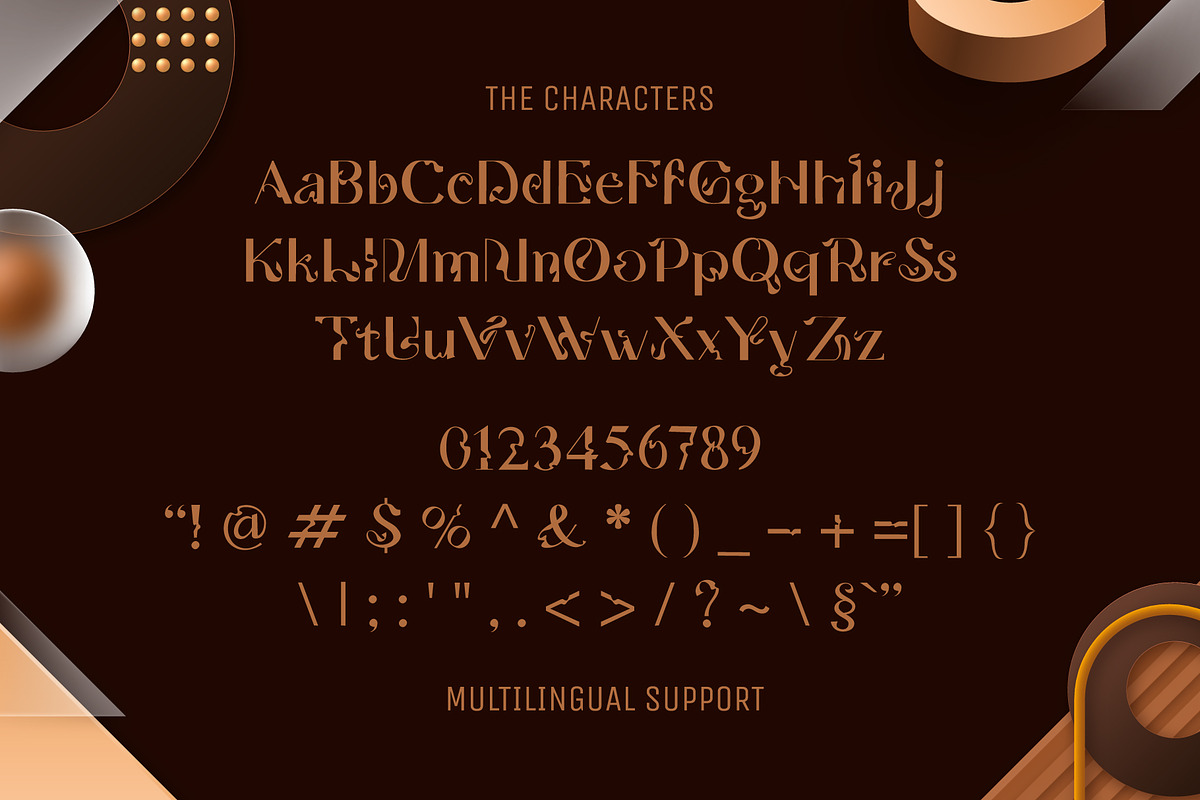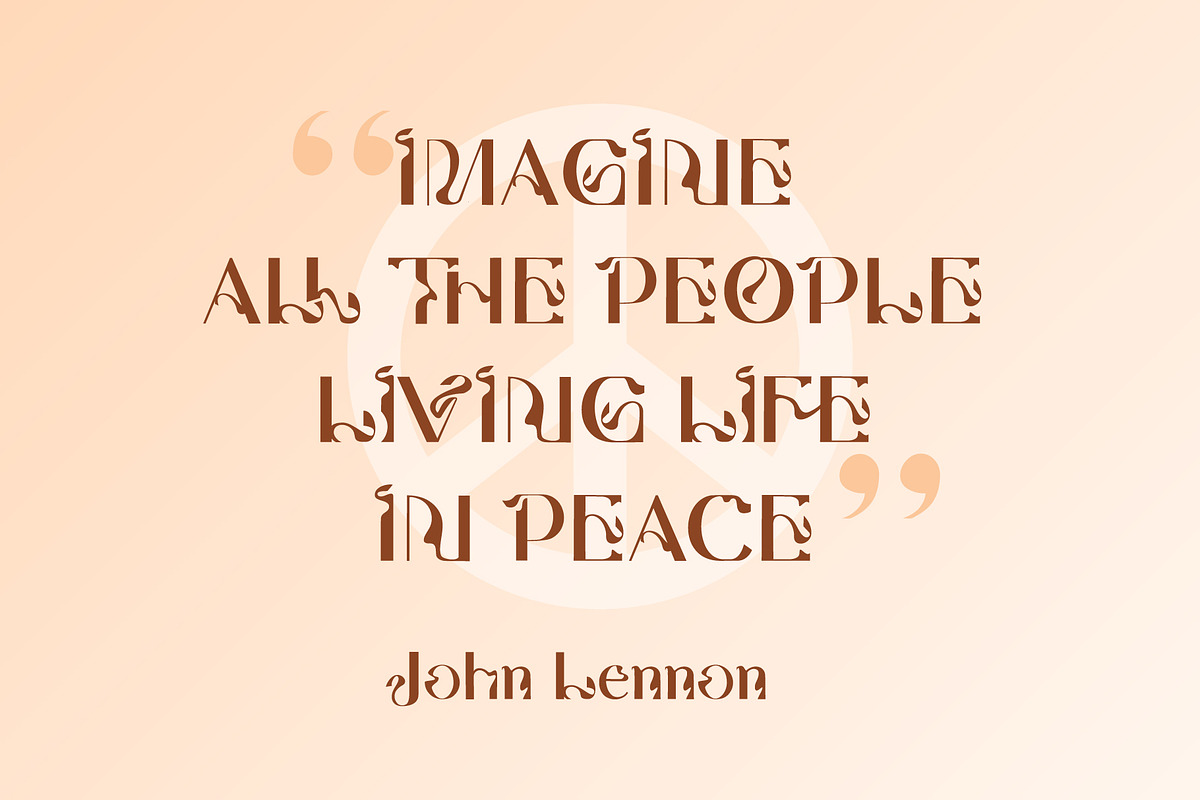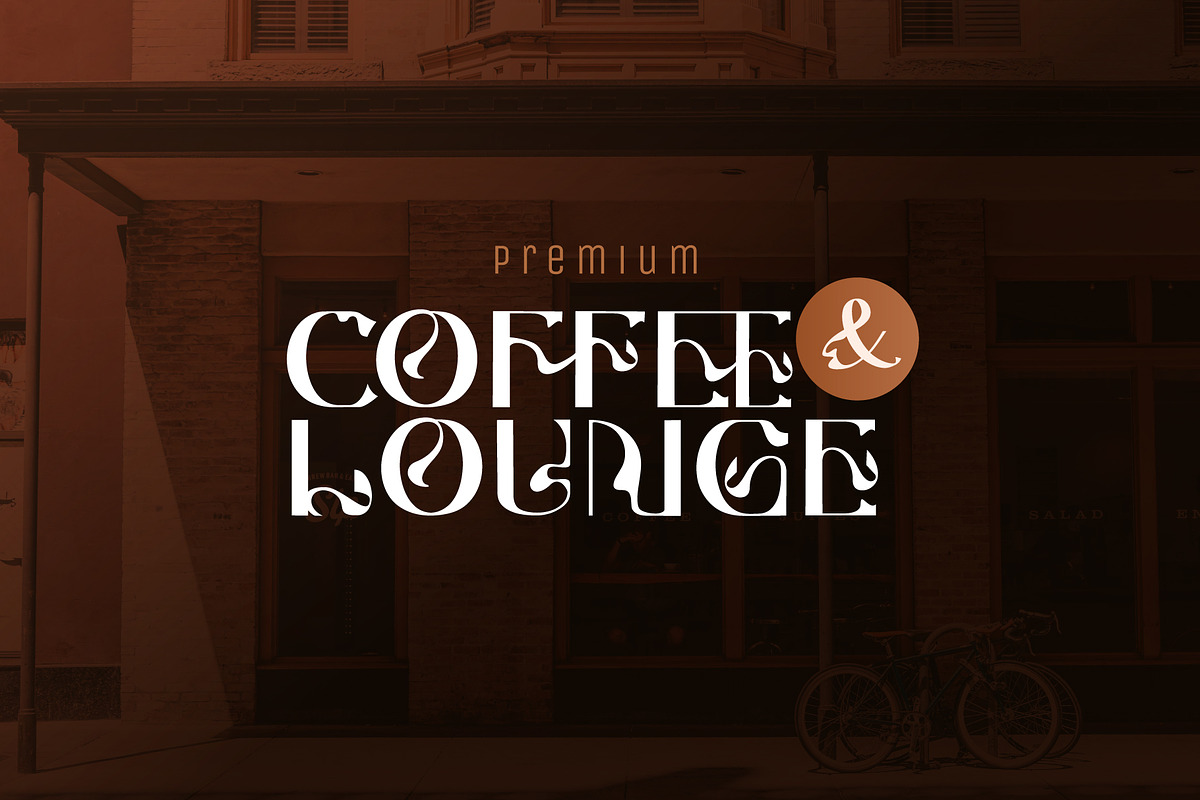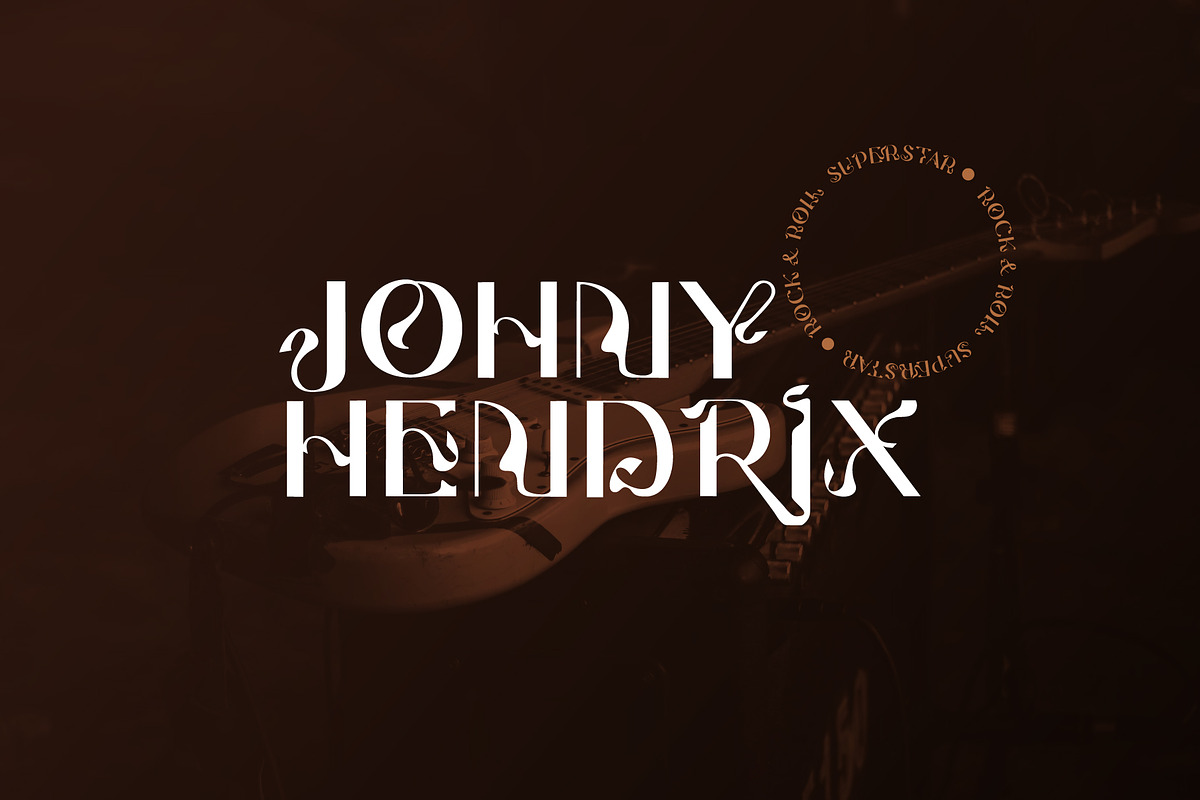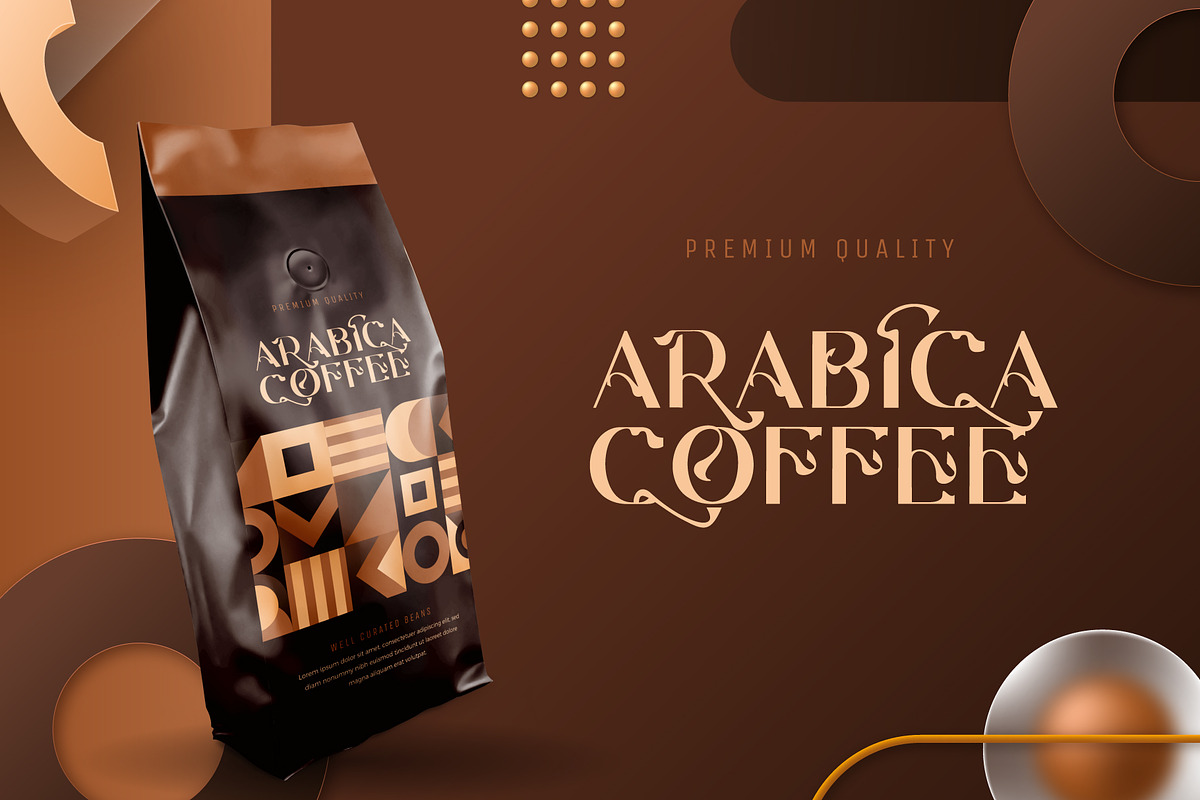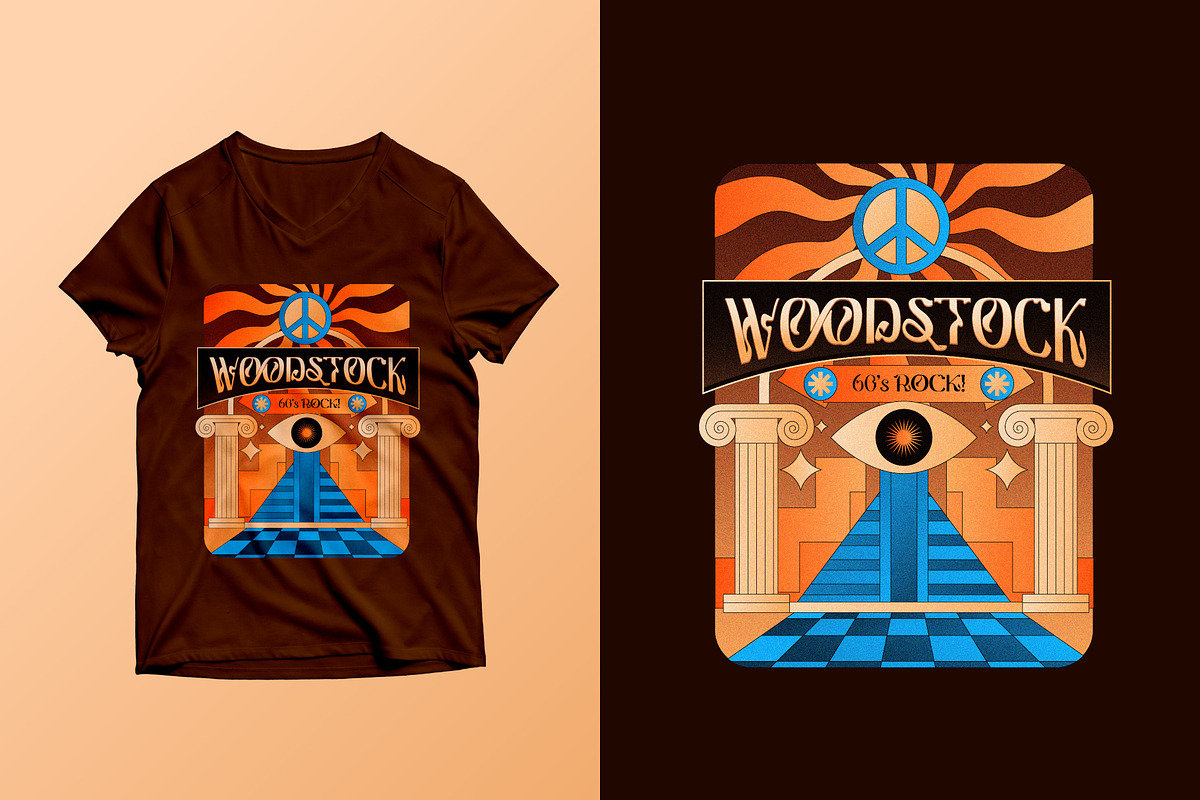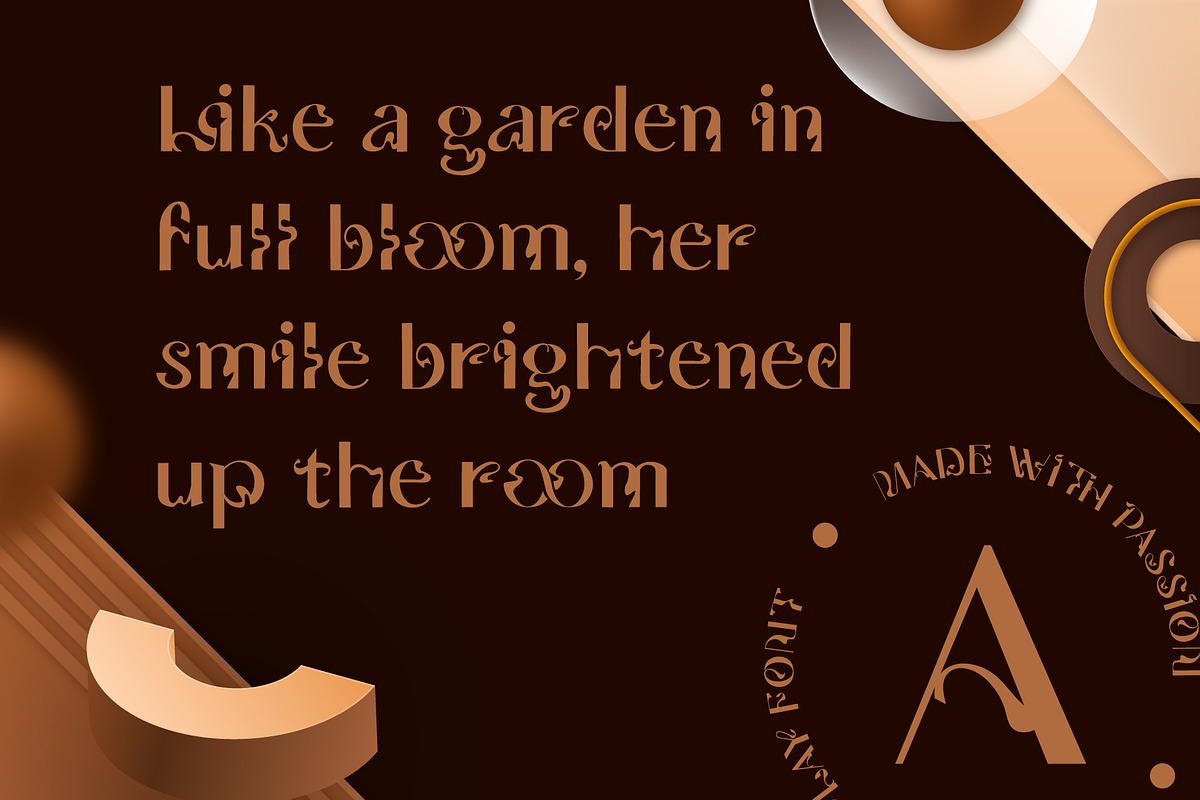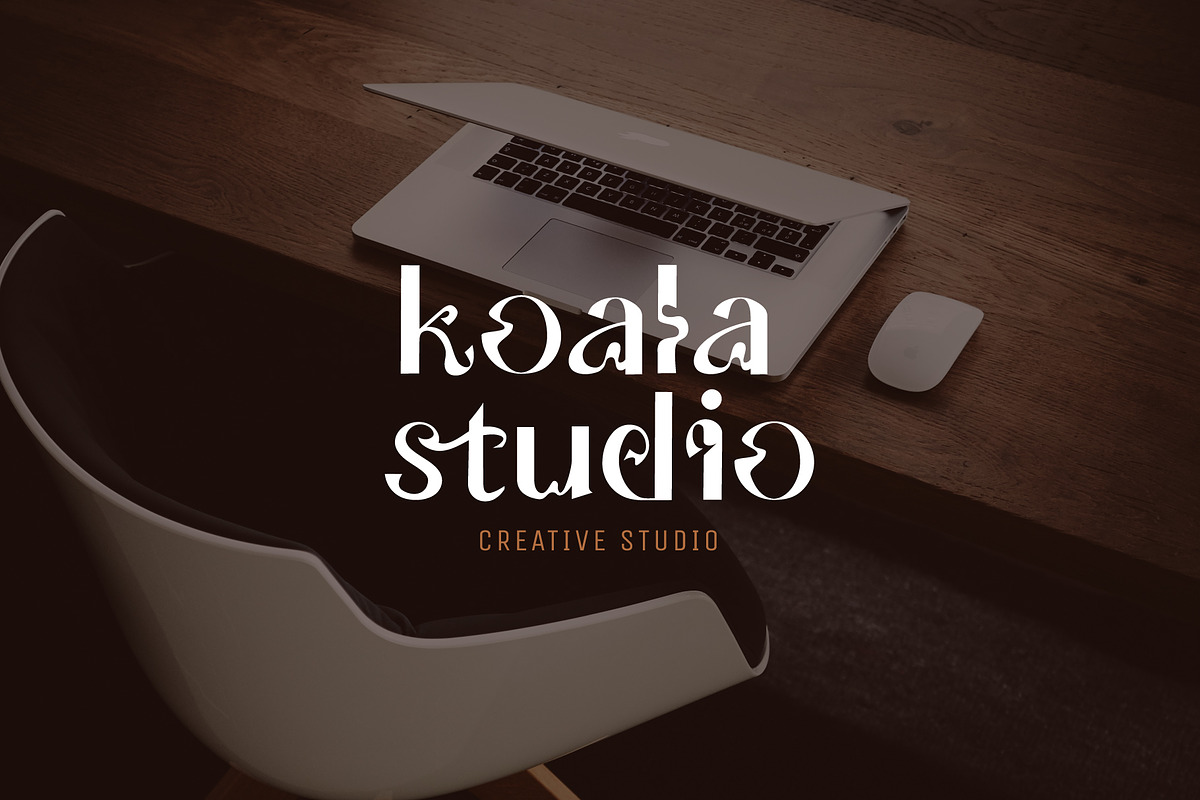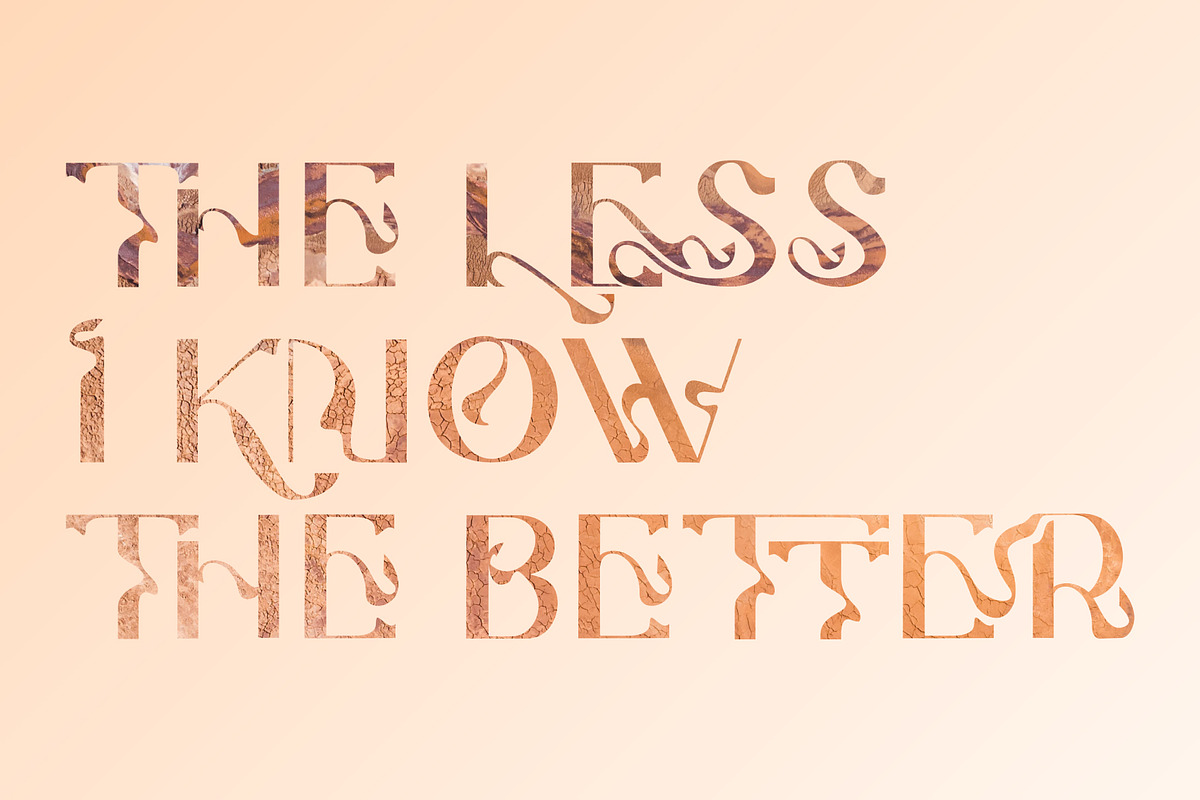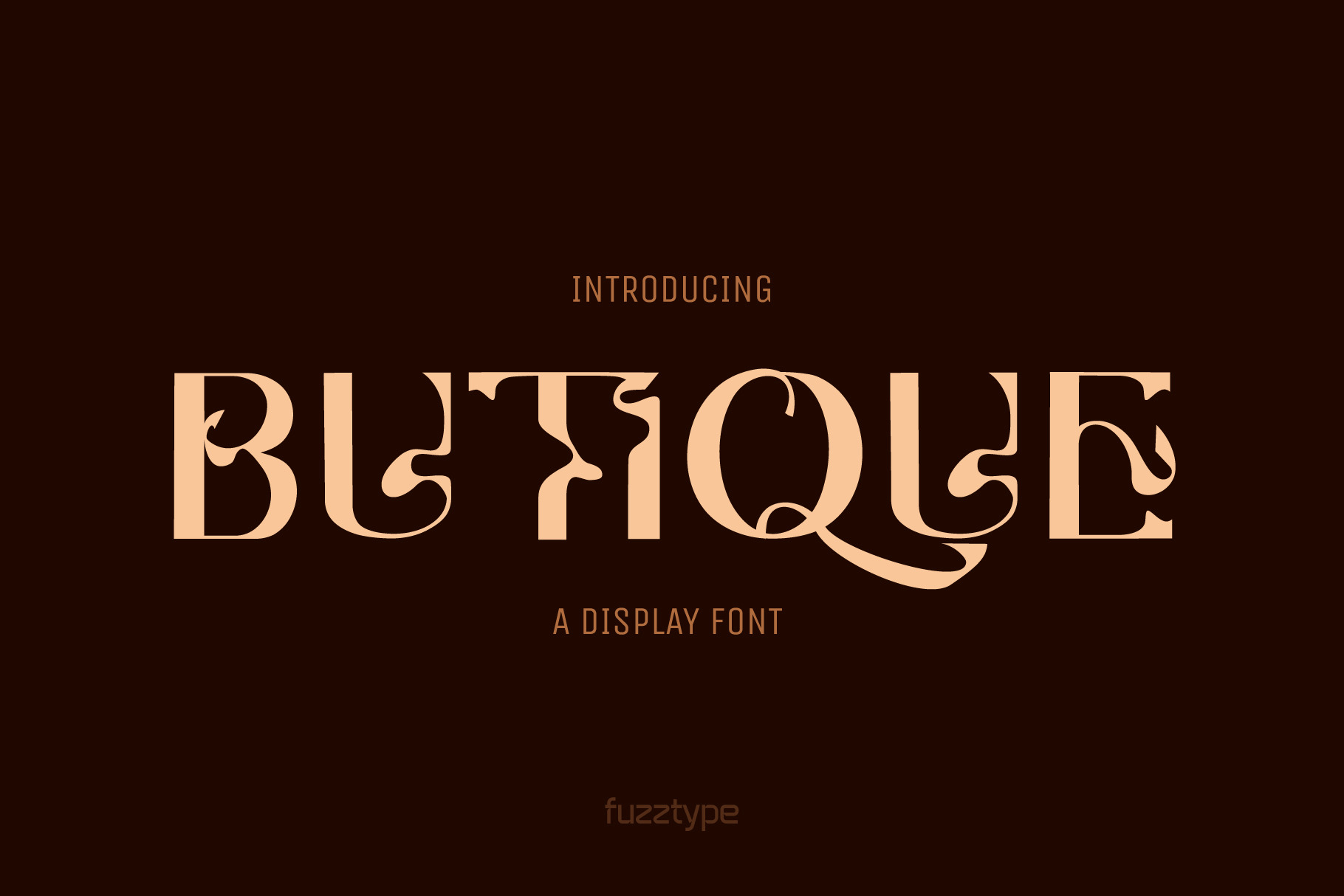
Butique Display Font
"BUTIQUE is a display font featuring curvy classy shapes, inspired by the psychedelic vibes of the 1960s It is highly suitable for various projects, such as showcasing poster typography, logotypes, editorial layouts, magazines, and even merchandise like t-shirts or stickers.
The font includes uppercase and lowercase letters, numerals, punctuation marks, and supports multiple languages. Additionally, it offers few ligature styles and alternate characters for added versatility.